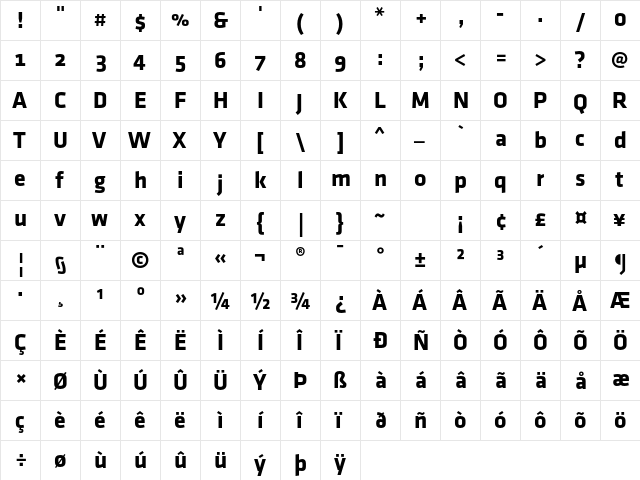
Klavika Bold Bold OSTF Font Preview
Klavika Bold Bold OSTF
Klavika Bold Bold OSTF Font Details
| Style | Bold OSTF |
| Foundry | Process Type Foundry |
Design Context for Klavika Bold Typeface
Klavika Bold takes a measured approach to typography — its balanced proportions and neutral character make it a reliable workhorse for both digital and print work. The heavy weight commands attention and anchors typographic hierarchies.